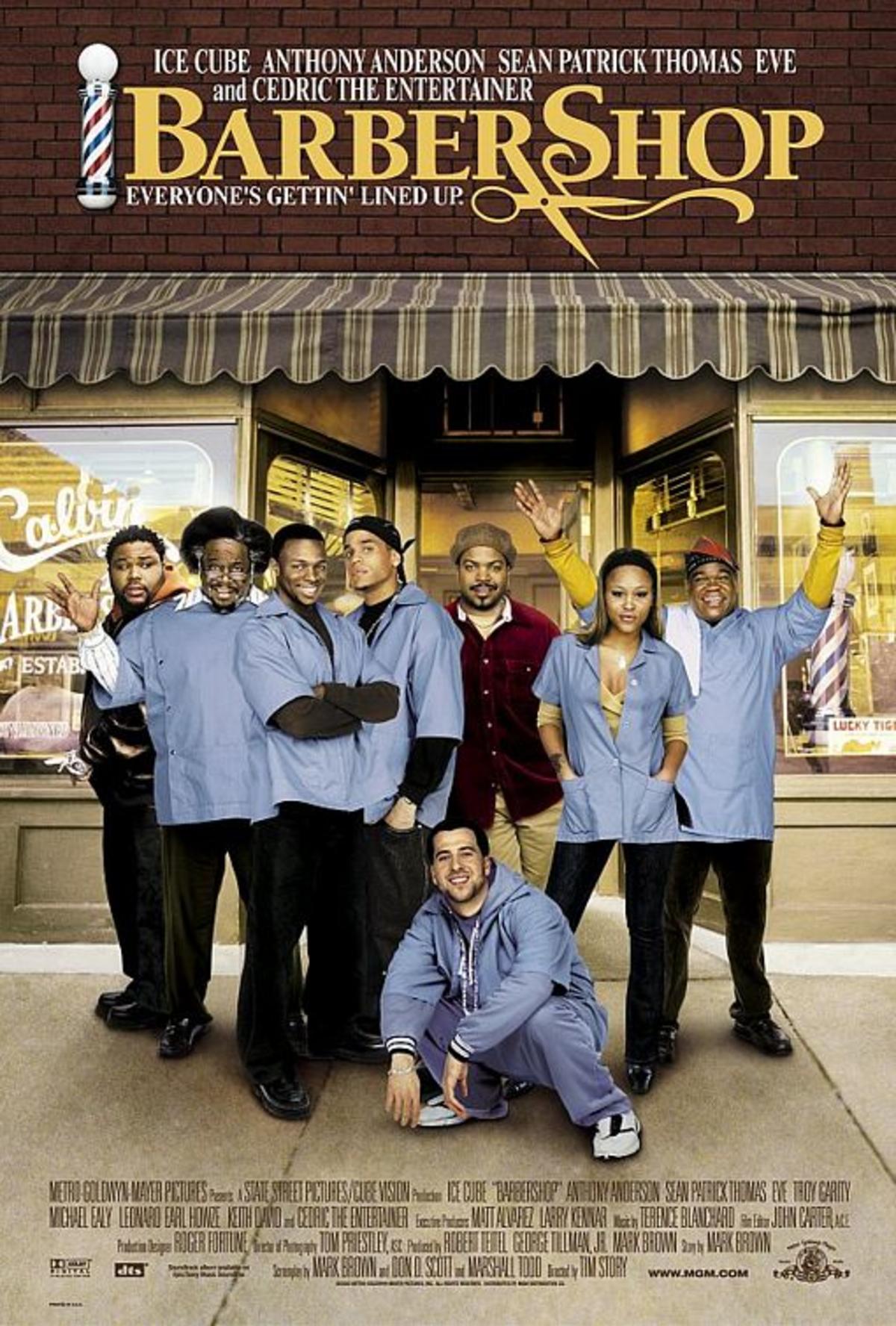
Barbershop [Movie] Font
ComedyBarbershop is a 2002 comedy film directed by Tim Story and starring Ice Cube. The film follows the lives and interactions of the customers and staff of a barbershop on the South Side of Chicago.
The film Barbershop title on the poster is very similar to ITC Berkeley Old Style Black. ITC Berkeley Old Style is based on the University of California Old Style, a typeface designed by Frederic W. Goudy in 1938. In 1983, Tony Stan redrew the family for ITC and was named Berkeley Old Style after the city in which the University of California Press is located.